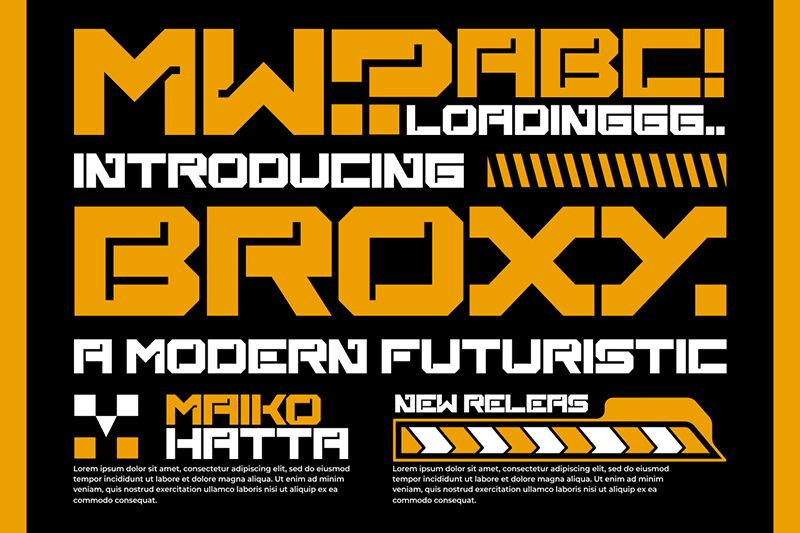
Broxy
Broxy font is a futuristic display font from Gilang Ternadho of Maikohatta. This expanded bold-font presents you with a contemporary design built on geometric angles for wich industrial looks are achieved. It therefore carries a strong presence that’ll allow small lettering to appear as outstanding as the large ones. Stylish, fun, and attractive… there is no mistaking this free display font for classic.
Display the Broxy typeface in branding projects including company logotypes; product labels and packaging too! Use it in magazines, movie and video game covers, posters, and social media posts. Websites can feature it in various ways just like UI/UX for mobile applications.